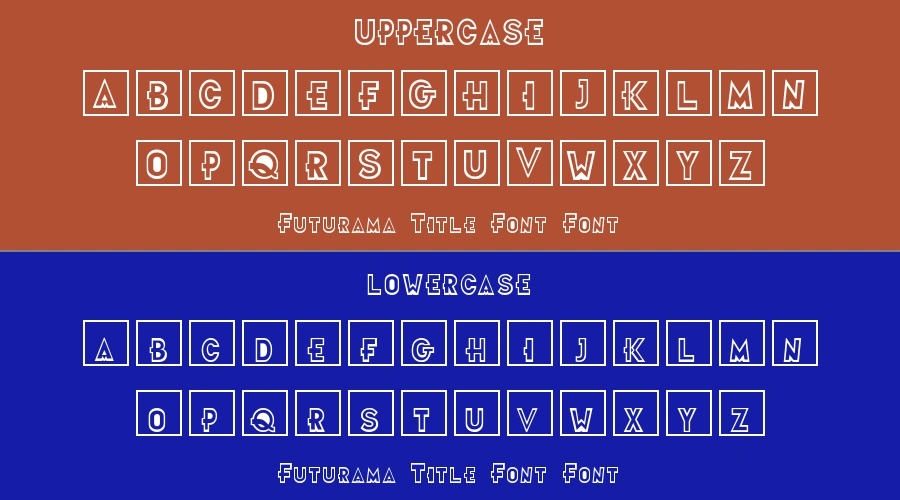
About Futurama Title Font Font
Designed with precision, Futurama Title Font Font merges flowing forms with brand presence in every character. This versatility makes it particularly effective for film titles, where precision and market relevance directly impact communication quality. Each letterform demonstrates meticulous craftsmanship.
Technical excellence shines through elements like bold expressions and proportional figures, enhancing typographic versatility. In ceremonial texts settings, Futurama Title Font Font proves its worth through superior file optimization. The thoughtful execution of joint detail and cultural context ensures professional results.